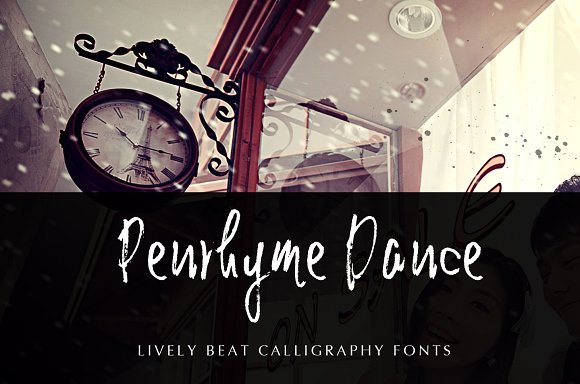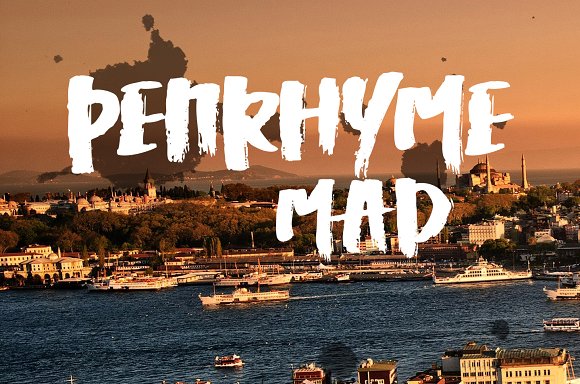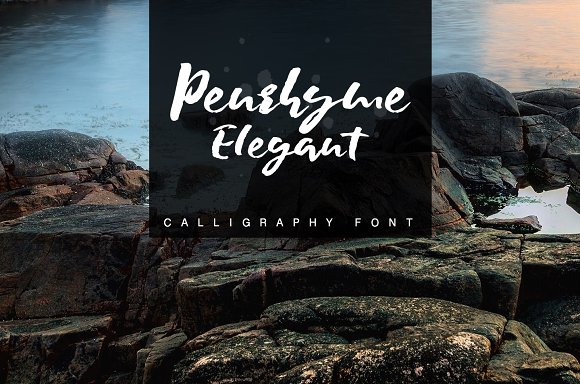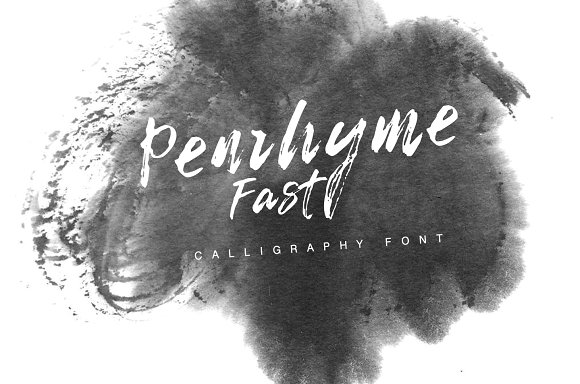
Penrhyme Calligraphy Font
It’s a set of calligraphy style fonts, include 6 fonts, they are Penrhyme Dance, Penrhyme Elegant, Penrhyme Fast, Penrhyme Flexible, Penrhyme Mad, Penrhyme Sway. can be used for Logo, books, advertisements, flyer,web etc.